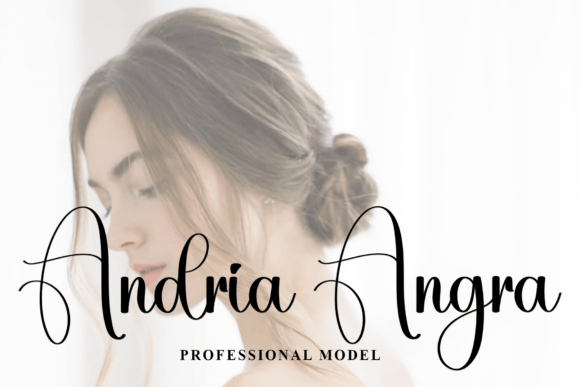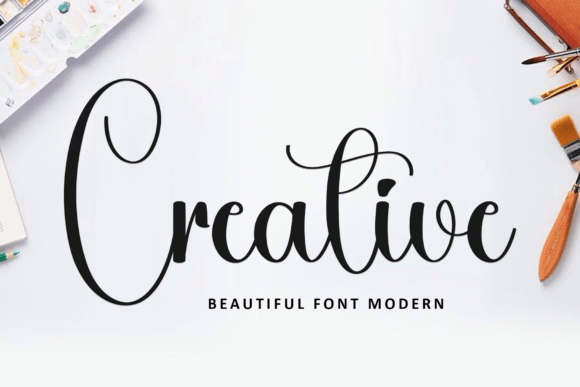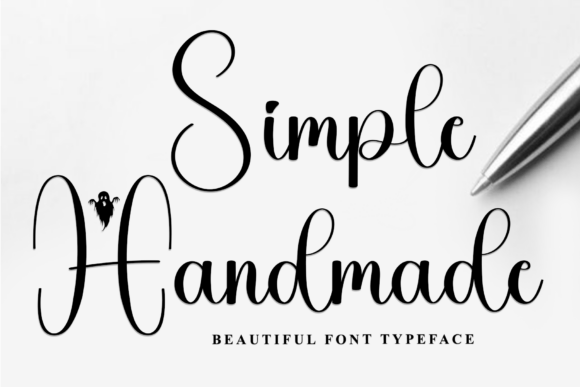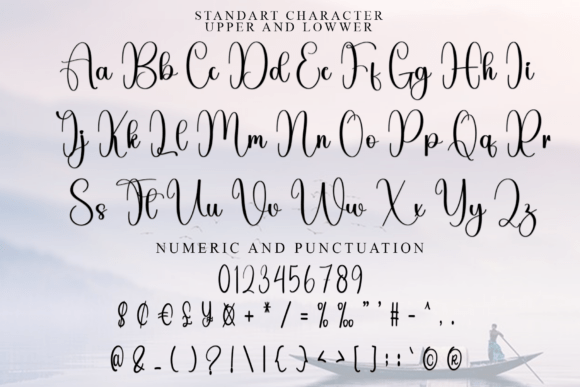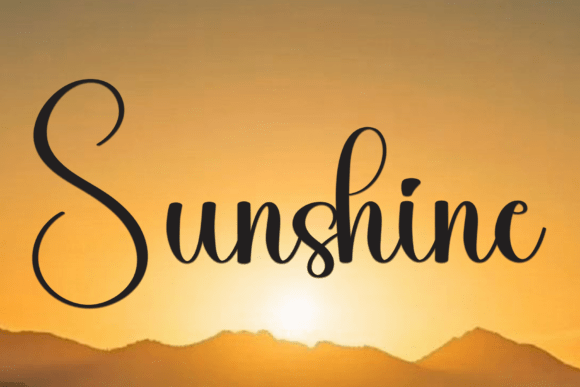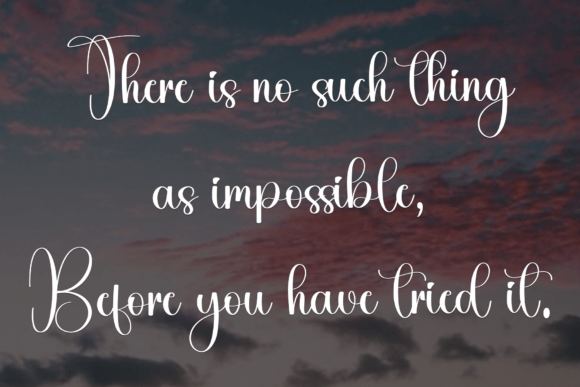
Introducing Hallowen Font: The Perfect Choice for Designers and Crafters
Are you looking for a font that can add a touch of uniqueness and elegance to your design projects? Look no further than the Hallowen Font. This beautiful and eye-catching font is designed with a soft, unique touch that sets it apart from other fonts. Its distinctive strokes give it a special character, making it meaningful and versatile for future use.
What Makes Hallowen Font Stand Out?
The Hallowen Font is perfect for designers and crafters who want to add a personal touch to their work. Its soft and unique design makes it ideal for a wide range of creative projects, from crafts and DIY designs to digital art and graphic design. The font’s distinctive strokes and characters give it a special charm that will make your designs stand out from the crowd.
Key Features of Hallowen Font
- Unique and Eye-Catching Design: The Hallowen Font has a soft and unique touch that sets it apart from other fonts.
- Distinctive Strokes: The font’s distinctive strokes give it a special character, making it meaningful and versatile for future use.
- Variety of Characters: The Hallowen Font comes with a range of characters, making it perfect for design projects, crafts, and other creative works.
The Hallowen Font is perfect for a wide range of design projects and crafts. Whether you’re working on a digital art project, a graphic design project, or a craft project, this font is sure to enhance your designs and make them appealing to many audiences. Its versatility and unique design make it ideal for:
- Digital art and graphic design
- Crafts and DIY designs
- Paper crafting and card making
- Sign making and vinyl cutting
Benefits of Using Hallowen Font
Using the Hallowen Font in your design projects and crafts can have numerous benefits. Some of the benefits include:
- Enhanced Designs: The Hallowen Font will enhance your designs and make them more appealing to many audiences.
- Increased Versatility: The font’s unique design and variety of characters make it versatile and perfect for a wide range of creative projects.
In conclusion, the Hallowen Font is a beautiful and eye-catching font that is perfect for designers and crafters. Its unique and soft design, distinctive strokes, and variety of characters make it versatile and ideal for a wide range of creative projects. Its compatibility with various applications and ease of use make it a great choice for anyone looking to enhance their designs and crafts.